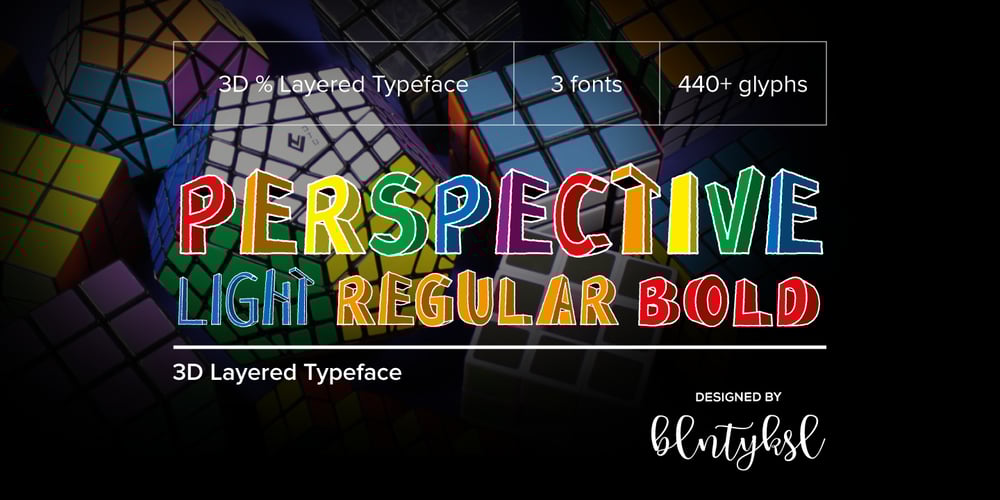
Perspective Sans
Perspective Sans font
Perspective Sans Font Family was designed by Bülent Yüksel and published by Bülent Yüksel. Perspective Sans contains 12 styles and family package options. The font primarily had a strong body. Family has a four layered experience. All and in harmony. This font has a strong personality, that makes it perfect for use in headline sizes. Also use for print, motion graphics, logo design, packaging design, t-shirts and more. By using layers, you can design different colors and sizes by repositioning lights and shadows. This will allow you to take your designs to the next level. Using this unique font, you’ll have a lot of fun and produce beautiful materials. You can contact me at buyuksel@hotmail.com, pre-purchase and post-purchase with questions and for technical support. There is nothing as satisfying as to do a good quality and properly job. You can enjoy using it.